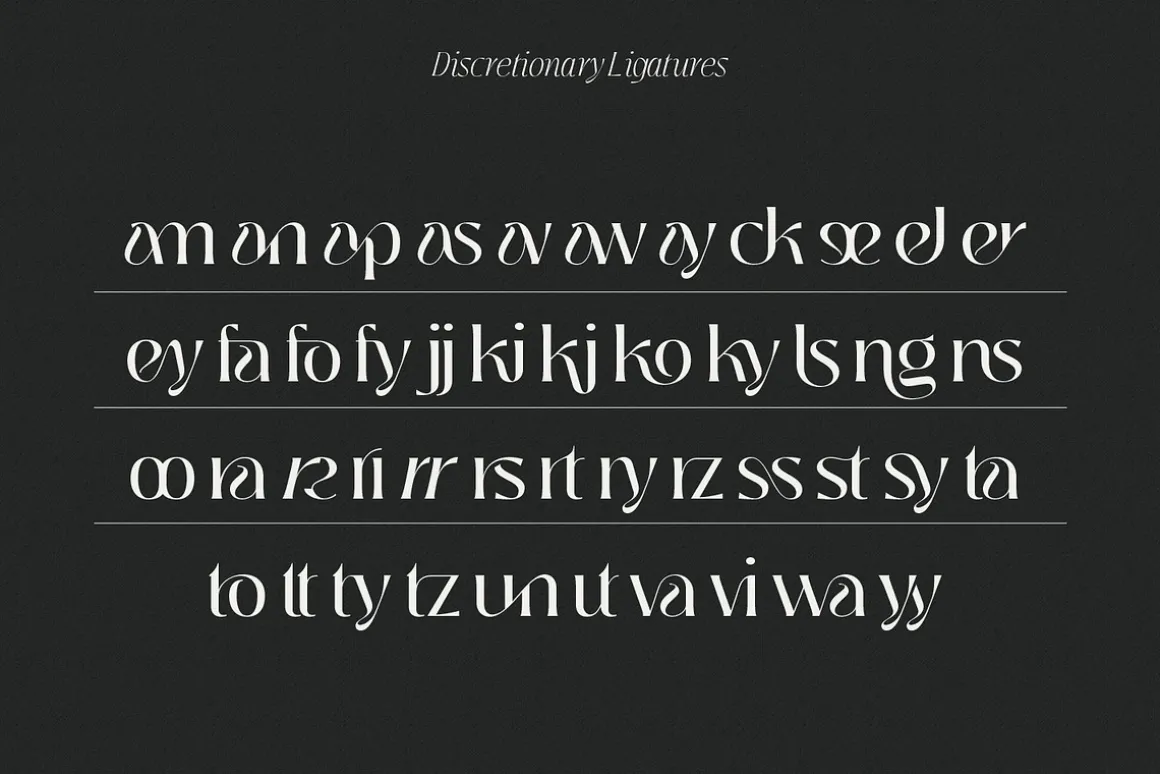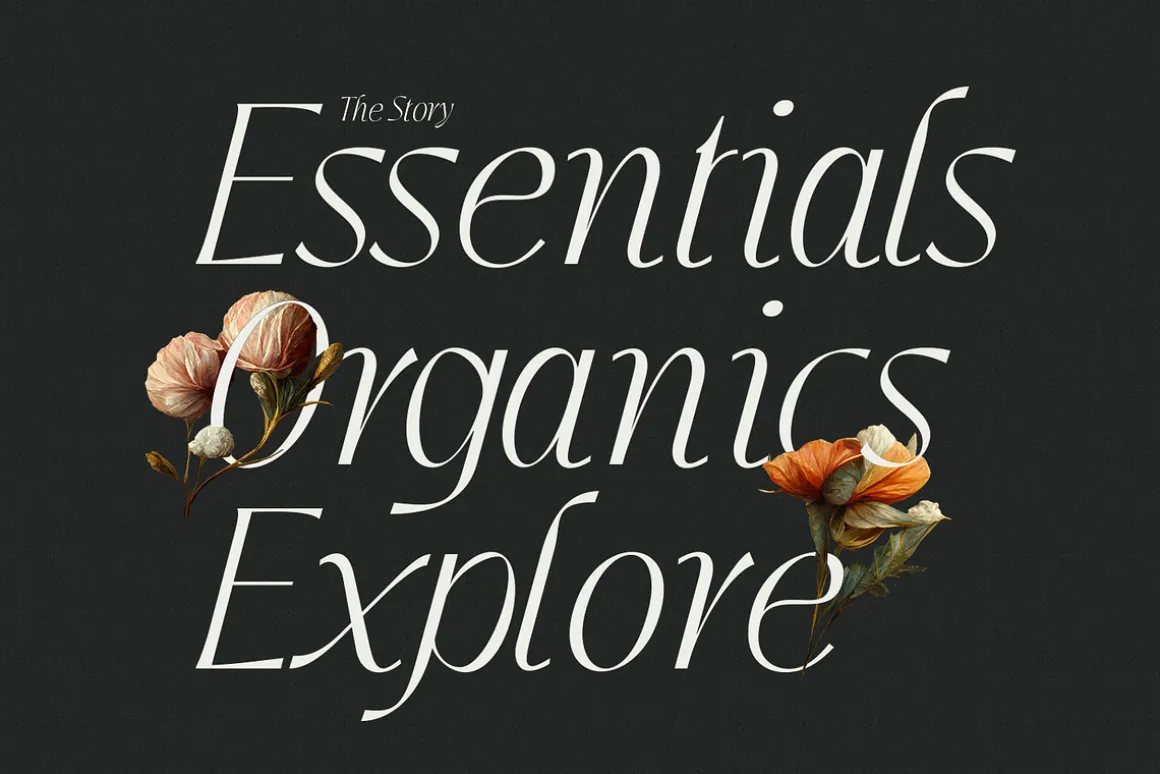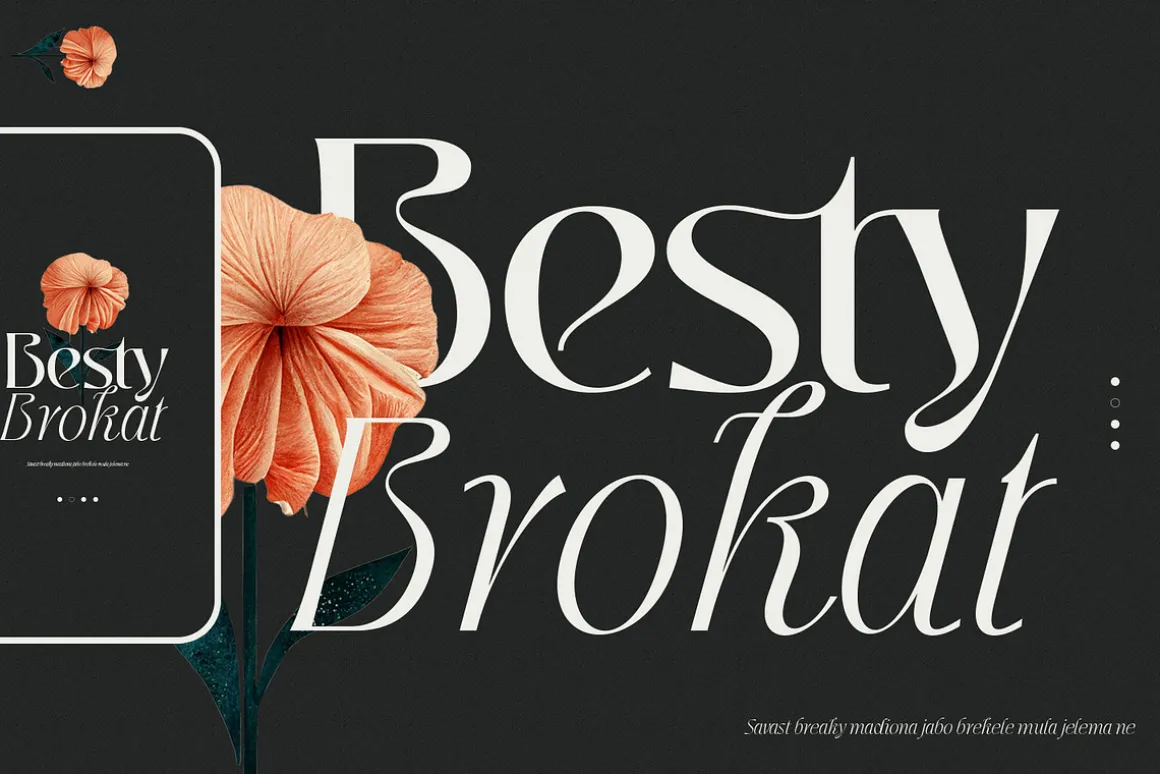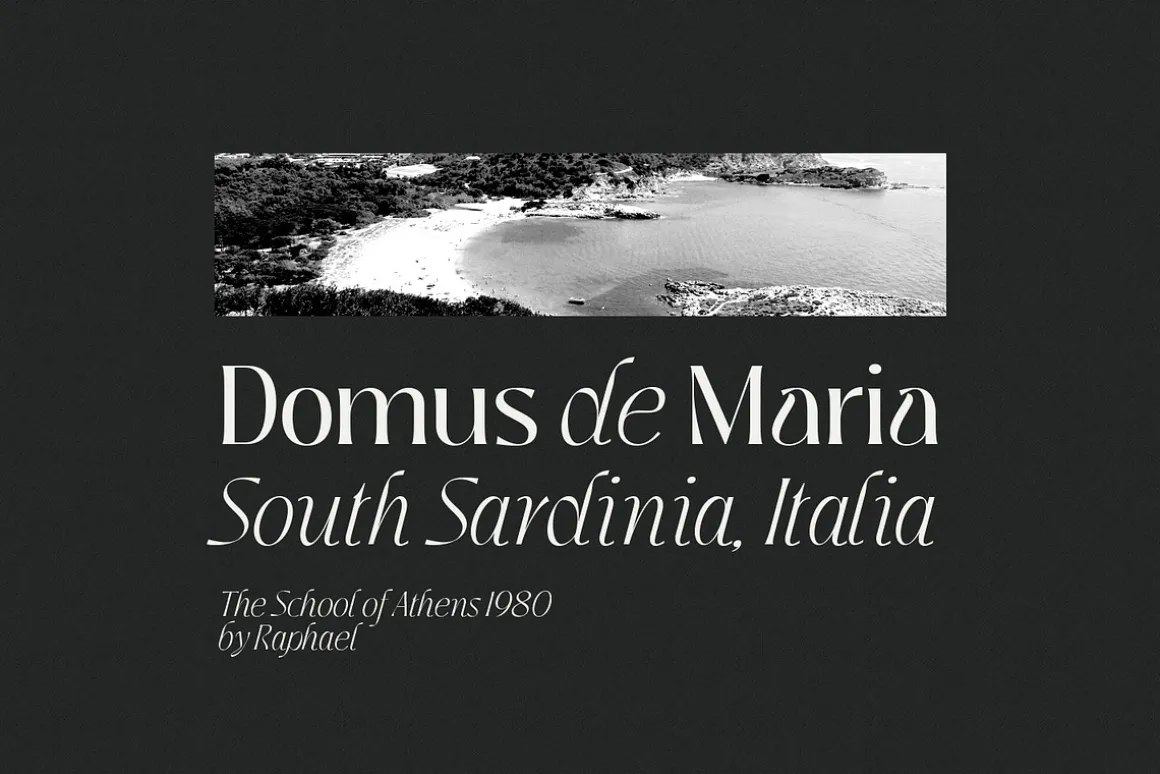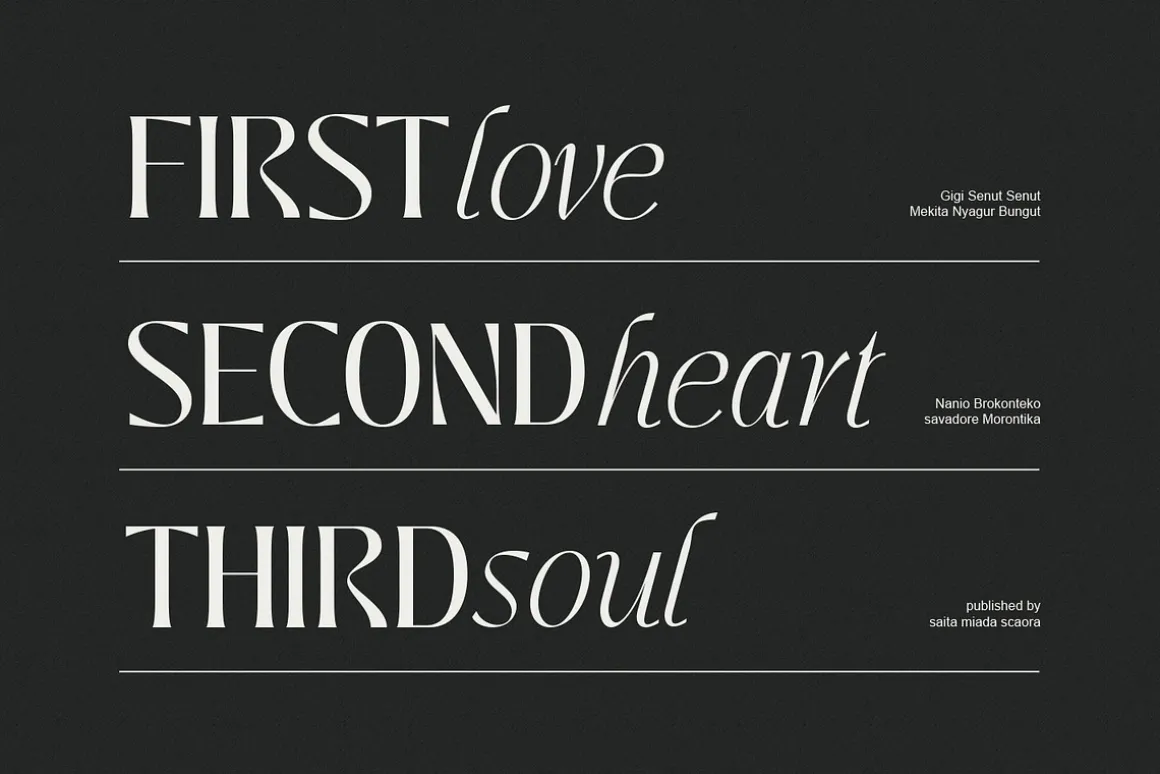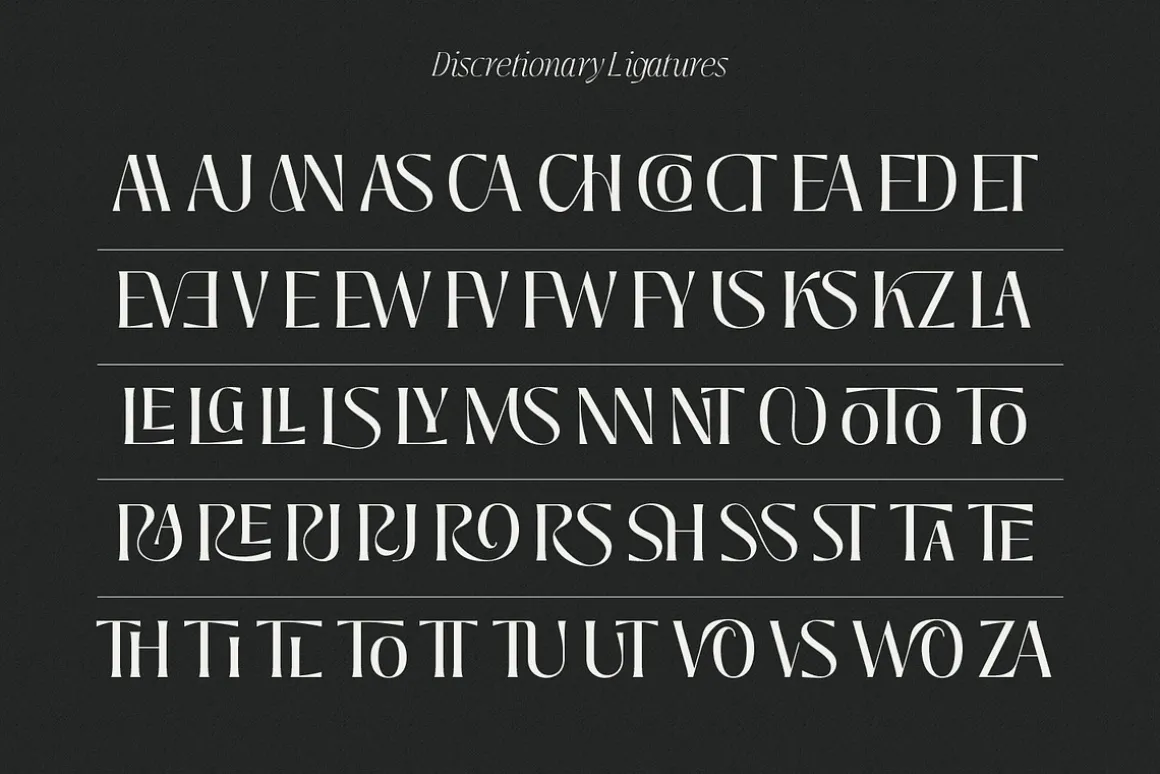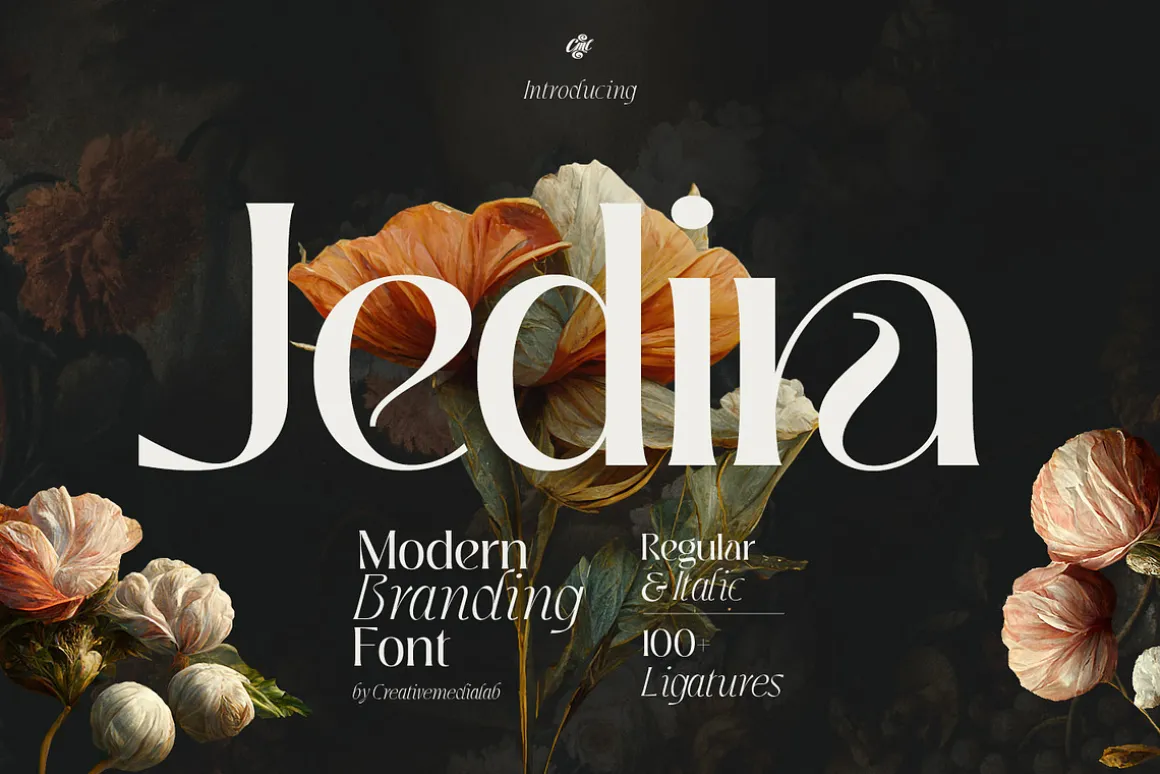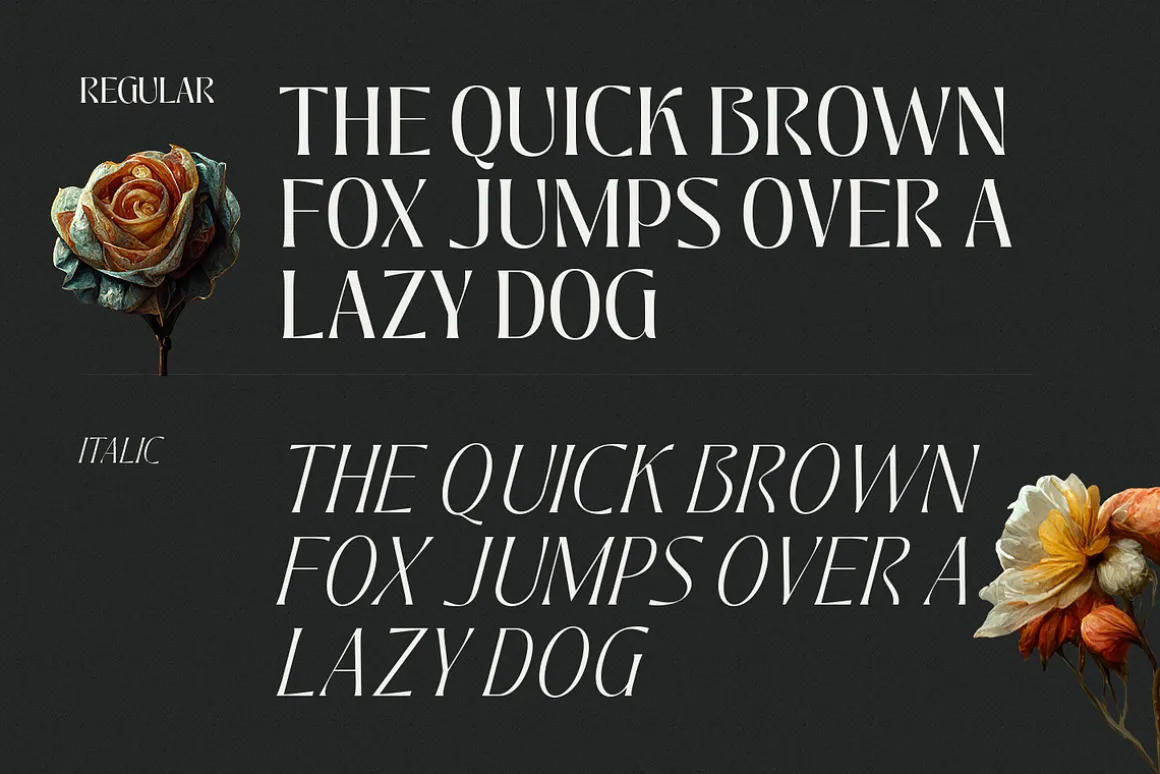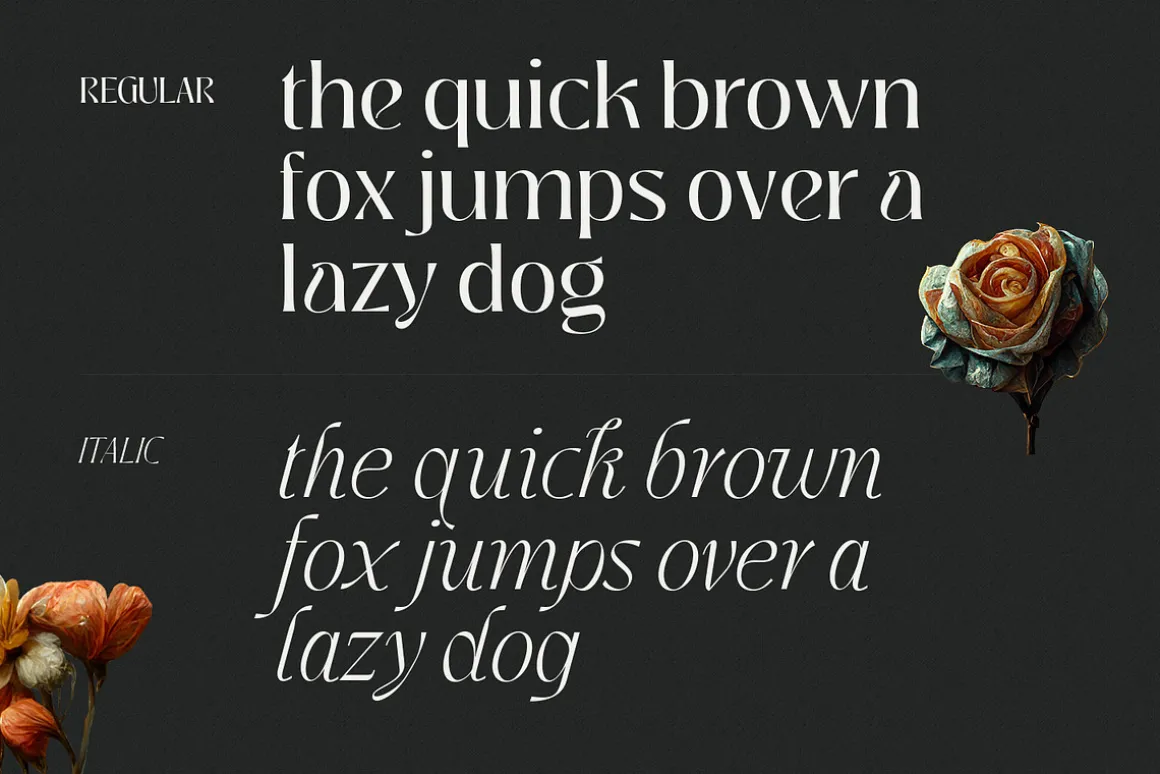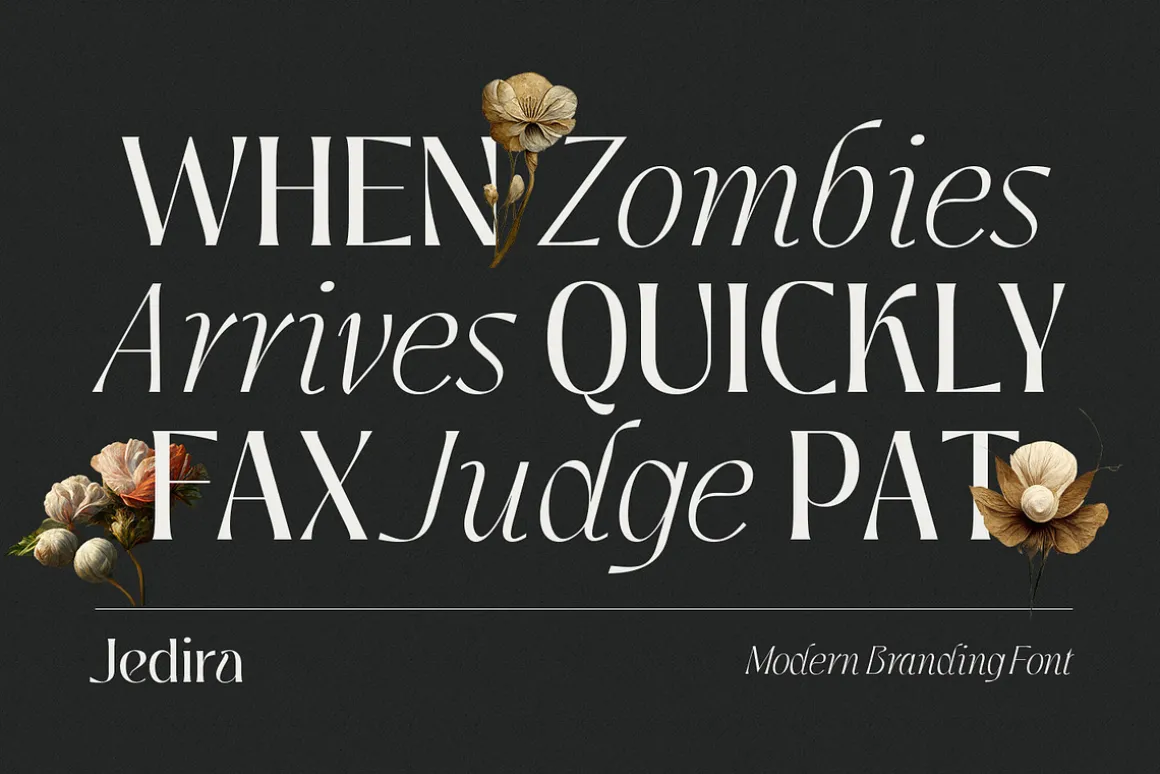
Introducing Jedira – Elegant and classy display font with matching italic and tons of ligatures. This versatile font is best for branding, webdesign project, logo, fashion related concept, and much more.